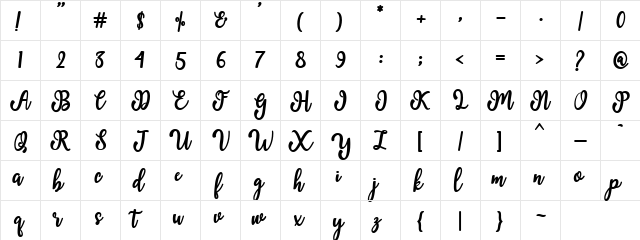
breather Regular
Design Context for breather Typeface
breather is a composed and adaptable typeface that performs quietly and consistently across a wide range of design contexts.